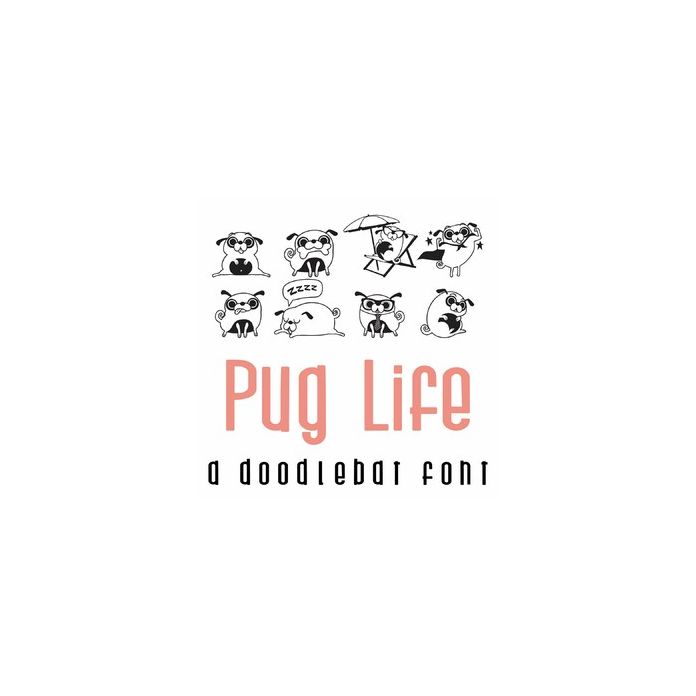
This fun doodlebat font features 26 adorable pugs living their best life. Perfect for cards, gifts, decor, crafts, scrap book pages, planner stickers and more!